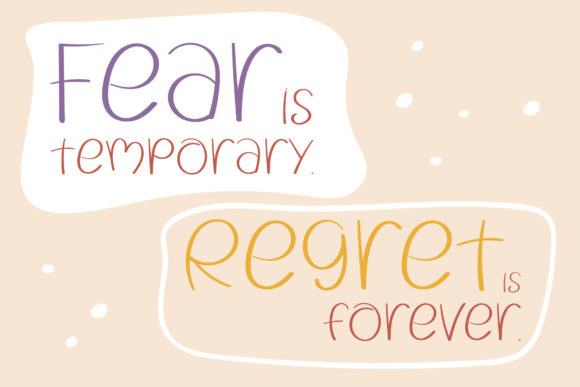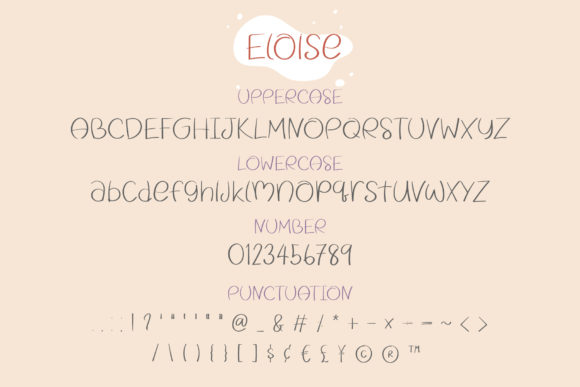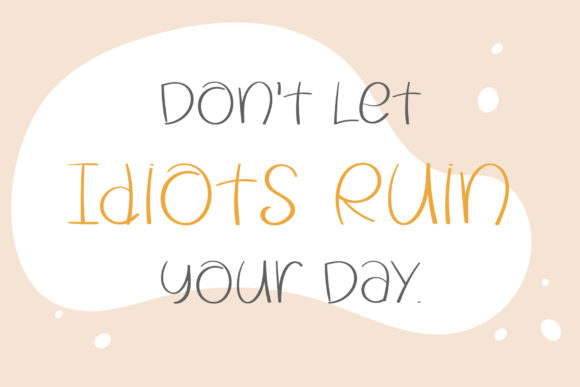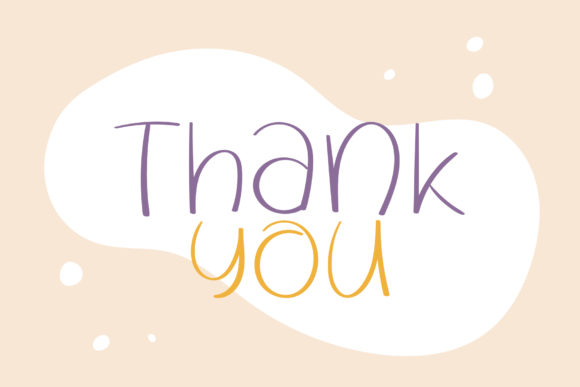
Where Words Meet Whimsy: The Joy of Eloise Handwritten Font
There’s something magical about a handwritten font that captures the essence of a moment. Perhaps it’s a scribbled note in a coffee shop, a child’s artwork on a fridge, or a love letter in a worn leather journal. Whatever the context, the imperfections and quirks of a handwritten font evoke a sense of personality and warmth.
Meet Eloise Handwritten Font, a charming and versatile typeface designed to bring a touch of whimsy to any project. Whether you’re a graphic designer, writer, or artist, Eloise is the perfect companion for crafting engaging stories and conveying emotions through typography.
With its effortless charm and readability, Eloise Handwritten Font is a valuable asset for designers looking to add a personal touch to their work. Whether you’re working on a bustling background or a standalone headline, Eloise is sure to shine, making it an essential addition to any creative toolkit.
Eloise Handwritten Font Key Features
- Font Style: Handwritten, Script
- Character Set: Latin, Greek, Cyrillic
- Unique Characteristics:
- Highly legible and readable
- Unique and elegant handwritten style
- Perfect for invitations, greeting cards, and wedding designs
Eloise Handwritten Font Review
As a designer, I was excited to try out the Eloise Handwritten Font. Here’s my honest review:
- Unique and playful feel: The Eloise Handwritten Font has a distinctive, handwritten look that adds a touch of whimsy to any design.
- Great for creative projects: This font is perfect for projects that require a more artistic or creative approach, such as children’s books, greeting cards, or social media graphics.
- Wide language support: The font comes with a wide range of language support, making it suitable for designs that need to be translated into multiple languages.
- Not suitable for formal designs: The handwritten look of the Eloise Font may not be suitable for formal or professional designs, such as business reports or academic papers.
- Limited flexibility: The font’s design is quite fixed, which can make it difficult to customize or manipulate for certain design needs.
Overall, I think the Eloise Handwritten Font is a great addition to any designer’s toolkit. While it may not be suitable for all types of designs, it’s perfect for projects that require a playful, creative touch.
Tips for Getting the Most Out of Eloise Handwritten Font
Use the Eloise Handwritten Font to create unique and personalized designs. Experiment with different font sizes, colors, and styles to create a cohesive look. Combine the font with other design elements, such as images and graphics, to add visual interest.
The Eloise Handwritten Font is ideal for use in invitations, greeting cards, and other paper crafts. It’s also a great choice for creating custom typography and graphics for social media, branding, and marketing materials.